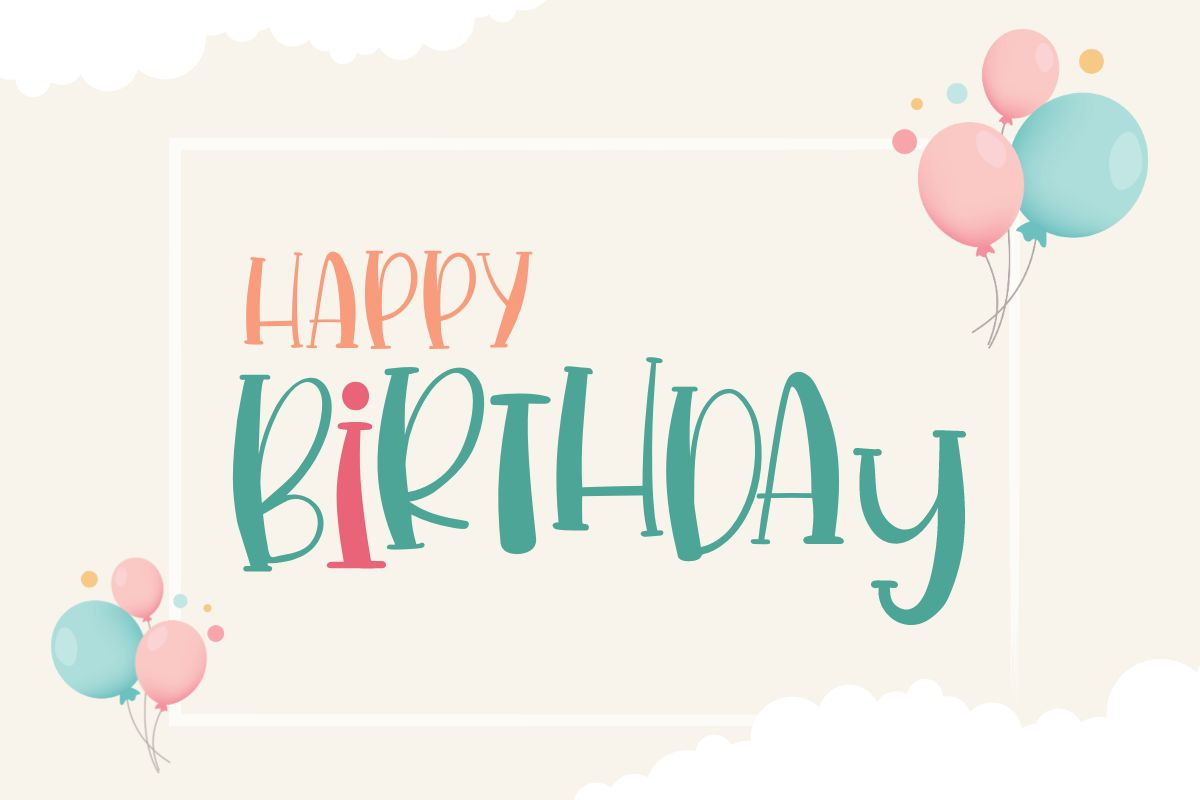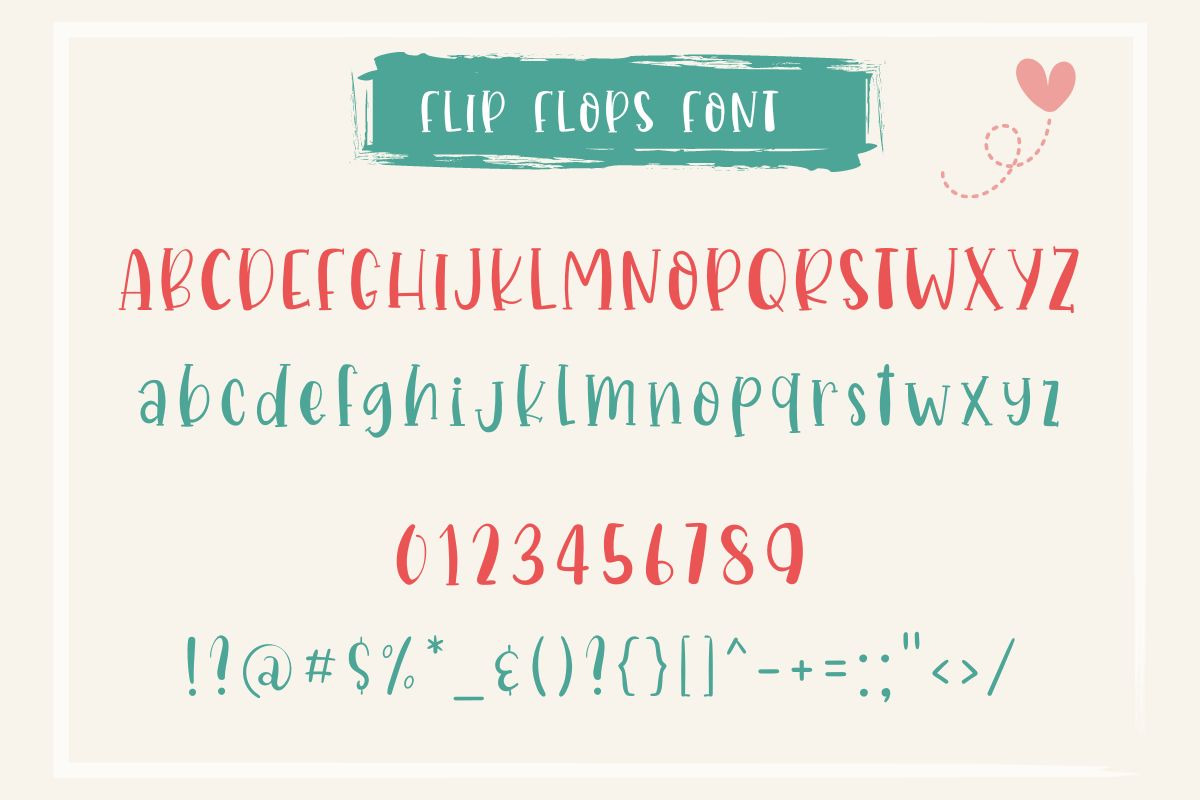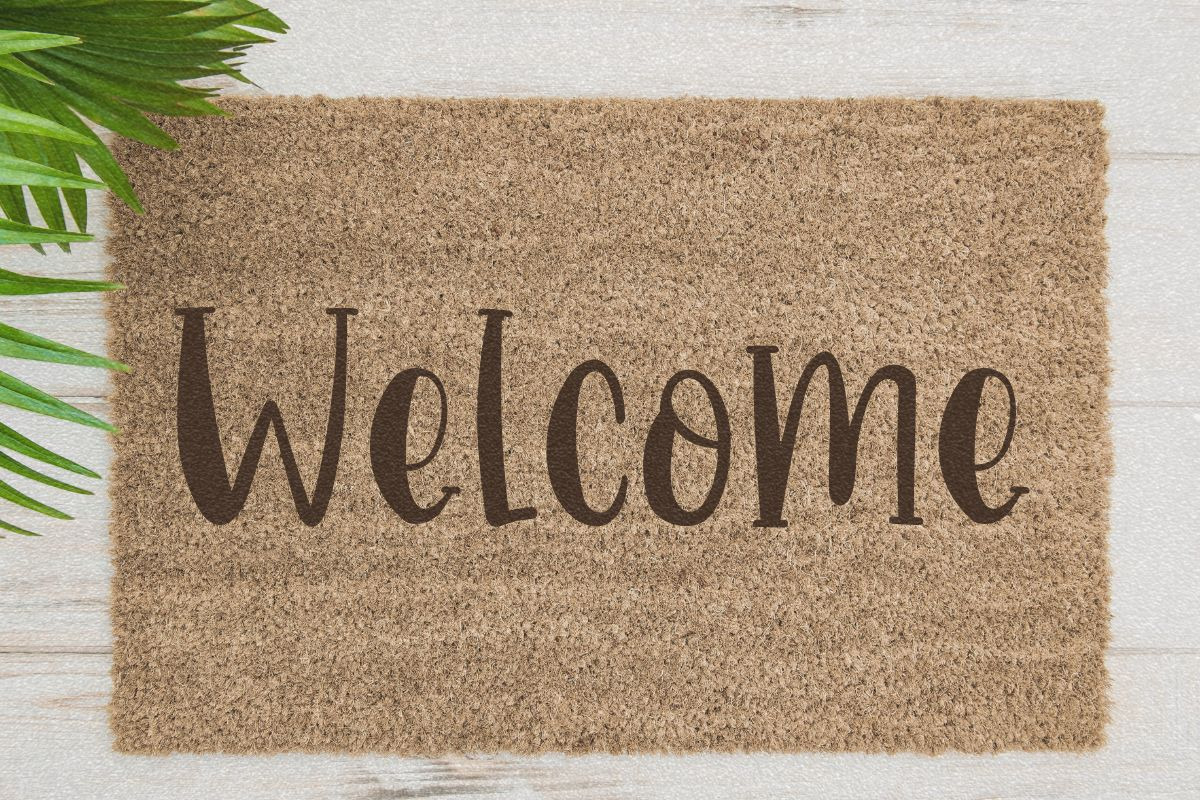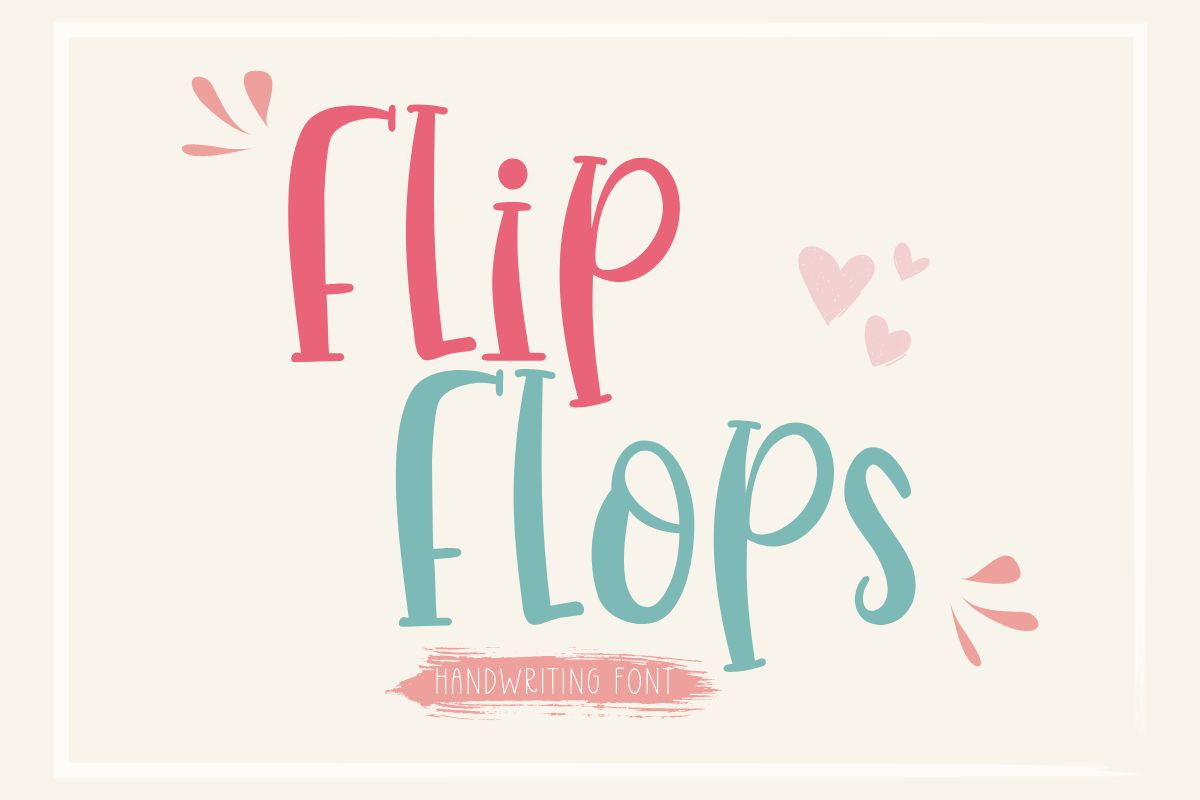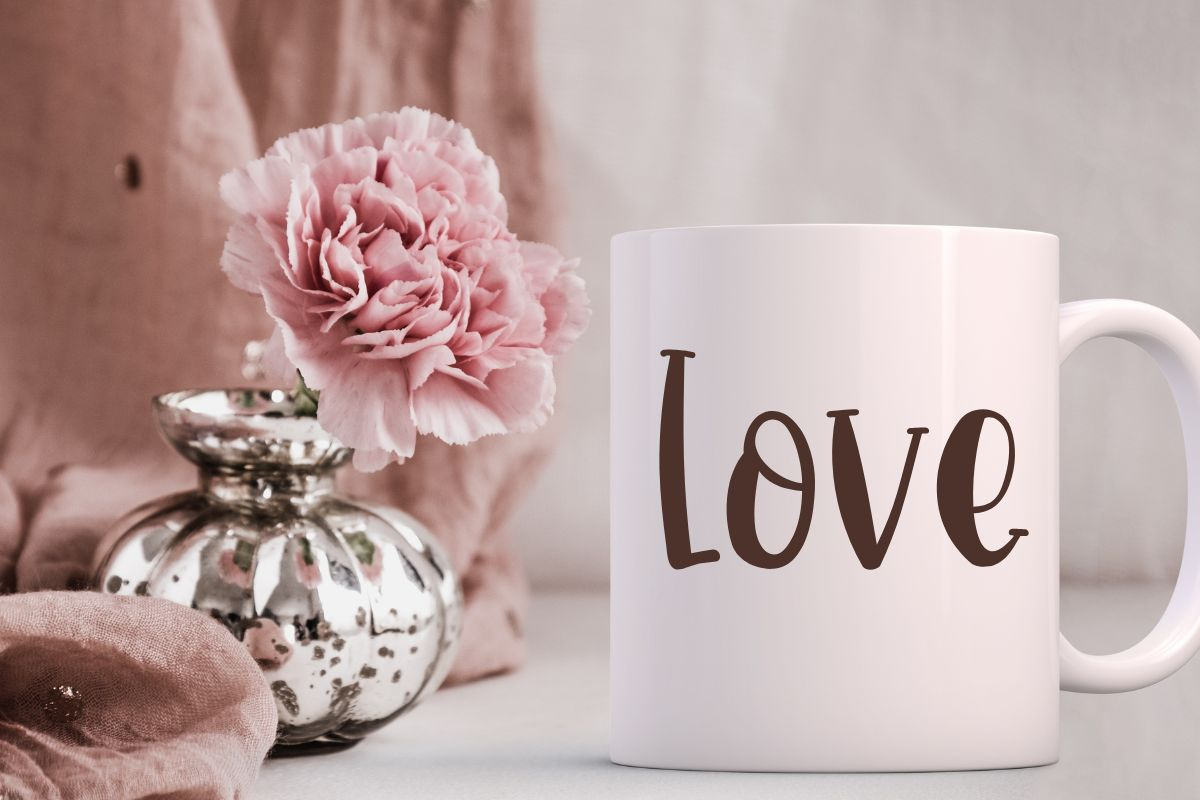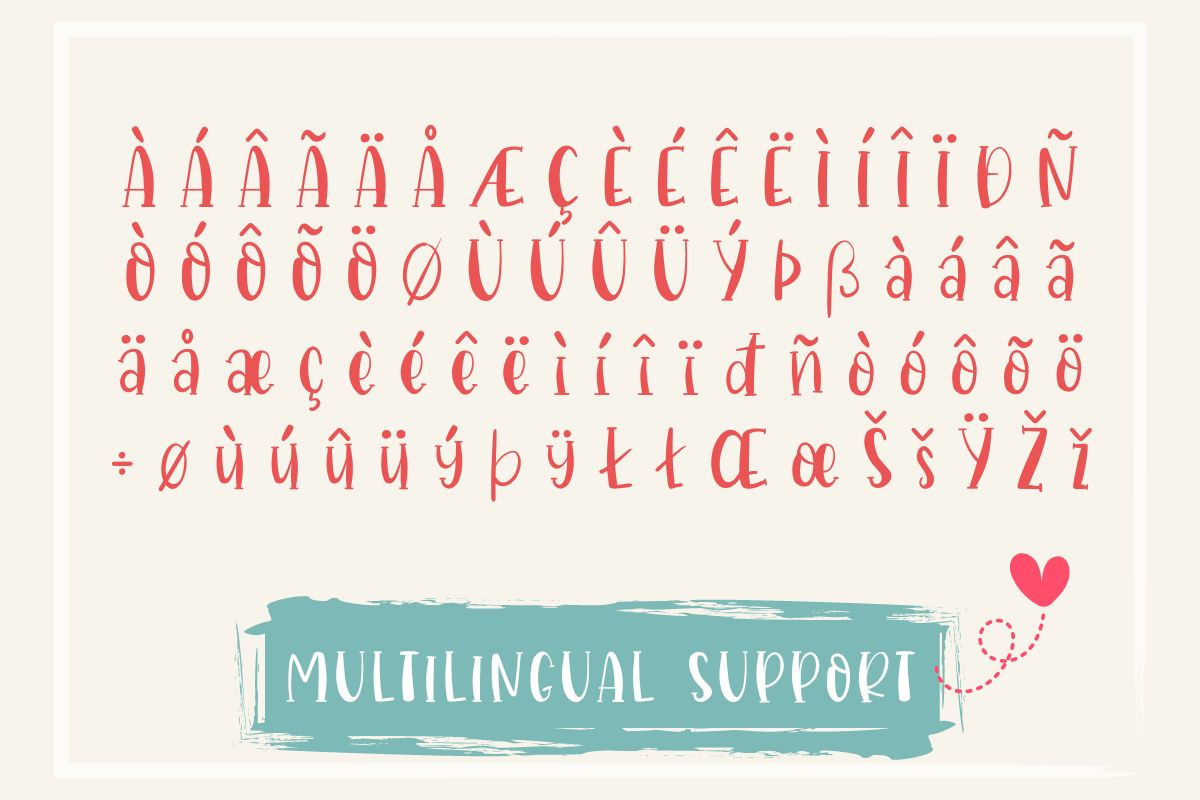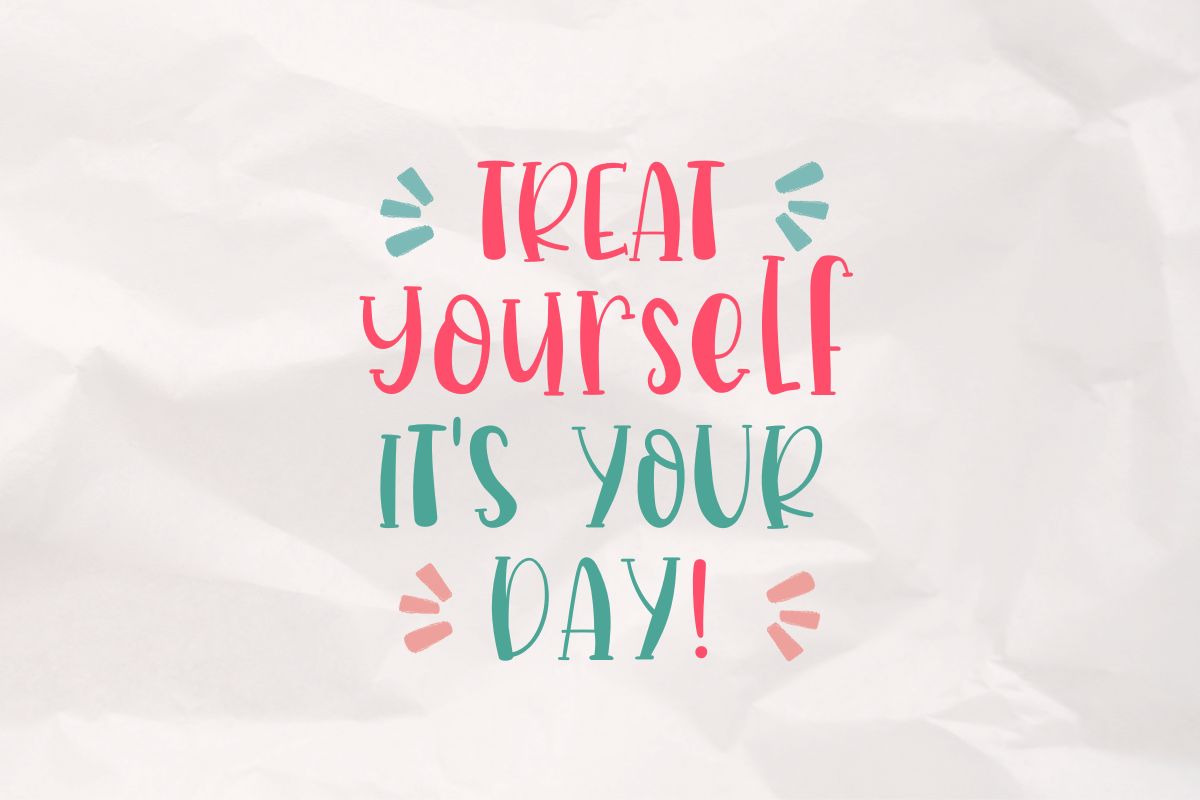
Flip Flops | Handwriting Font
The Flip Flops font is a delightful combination of a cute handwritten style and a touch of sophistication with its subtle serif details. This charming typeface brings a playful and approachable vibe to your designs. Perfect for adding a touch of whimsy to invitations, greeting cards, and other creative projects, this font is sure to capture attention and spread joy.